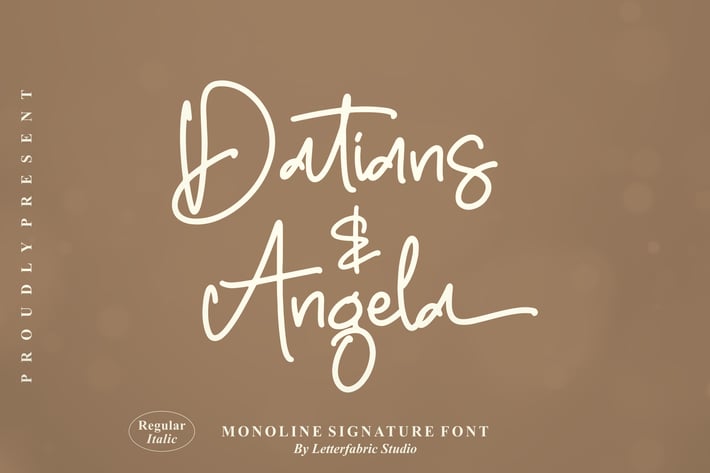
Datians Angela Monoline Signature Font
Datians Angela Monoline Signature Font brings a soft, handwritten flow designed to elevate both digital and printed creative projects. Its smooth monoline strokes and natural signature look make it an ideal choice for branding, social media aesthetics, posters, and personal design work that needs a warm, elegant touch.
Monoline signature style
Natural handwritten curves
Regular & Italic versions included
Smooth and clean letterforms
A beautiful monoline signature font made to bring effortless elegance to every design you create.